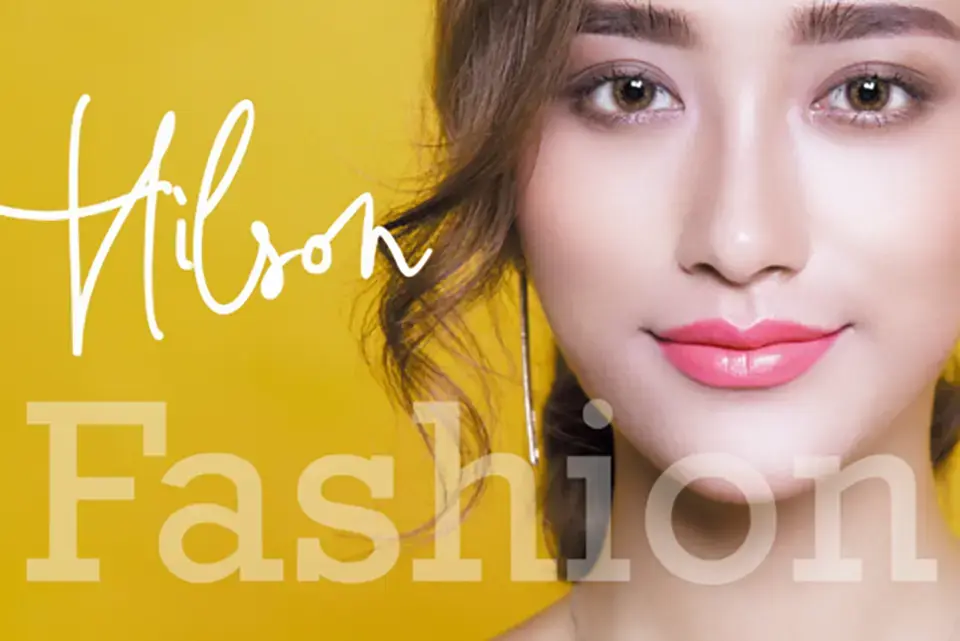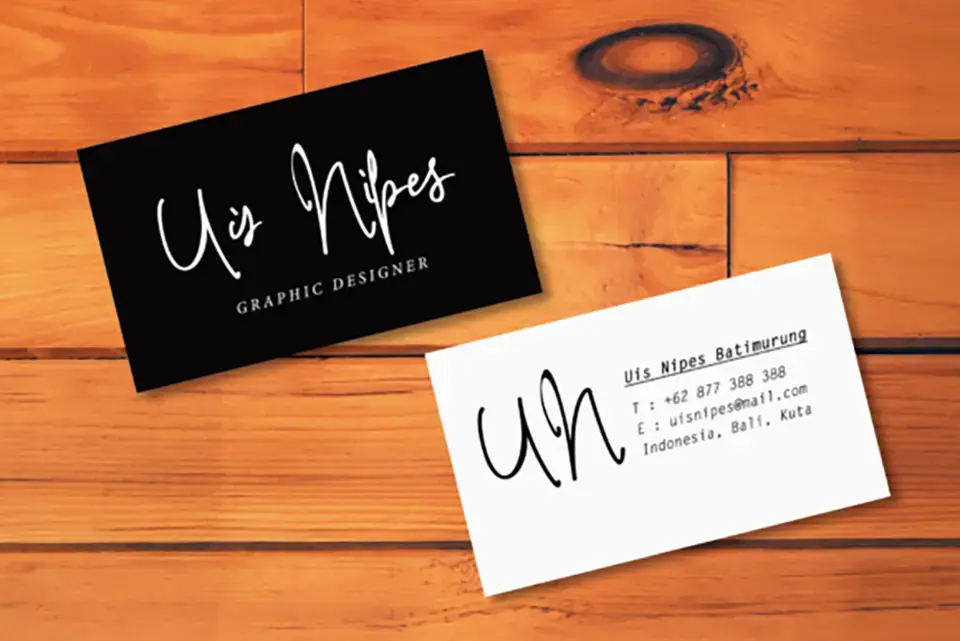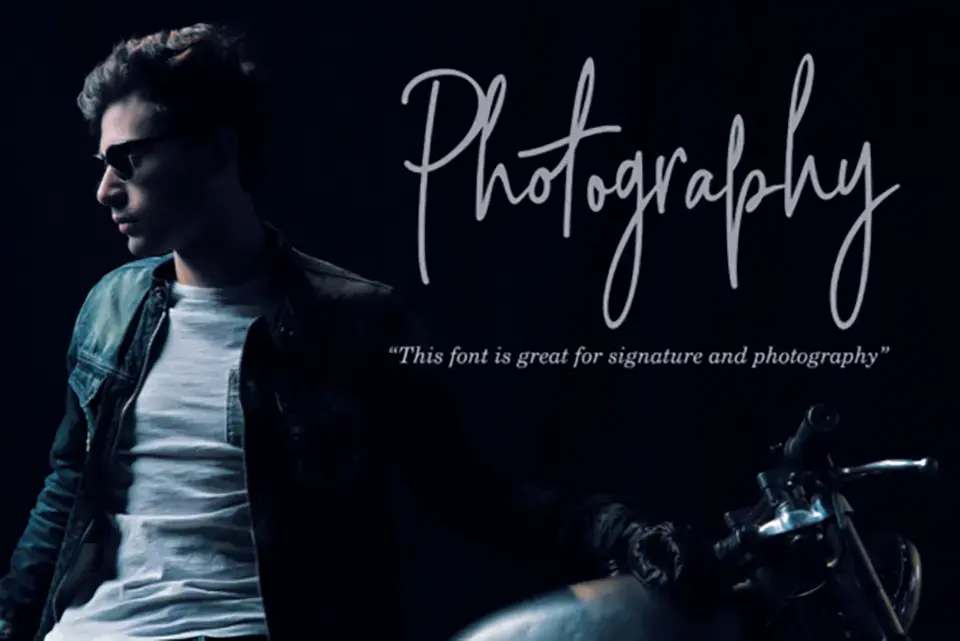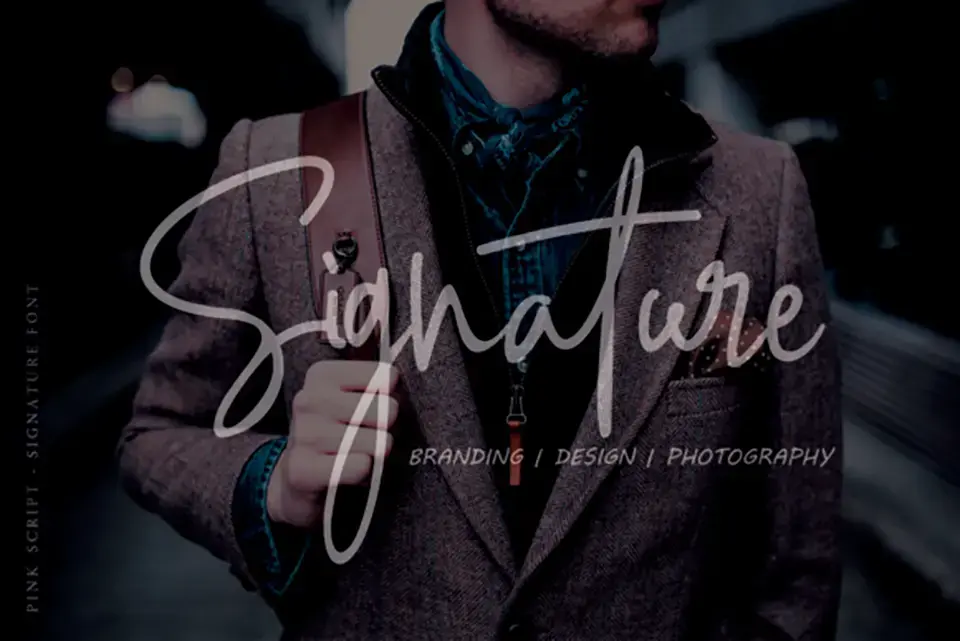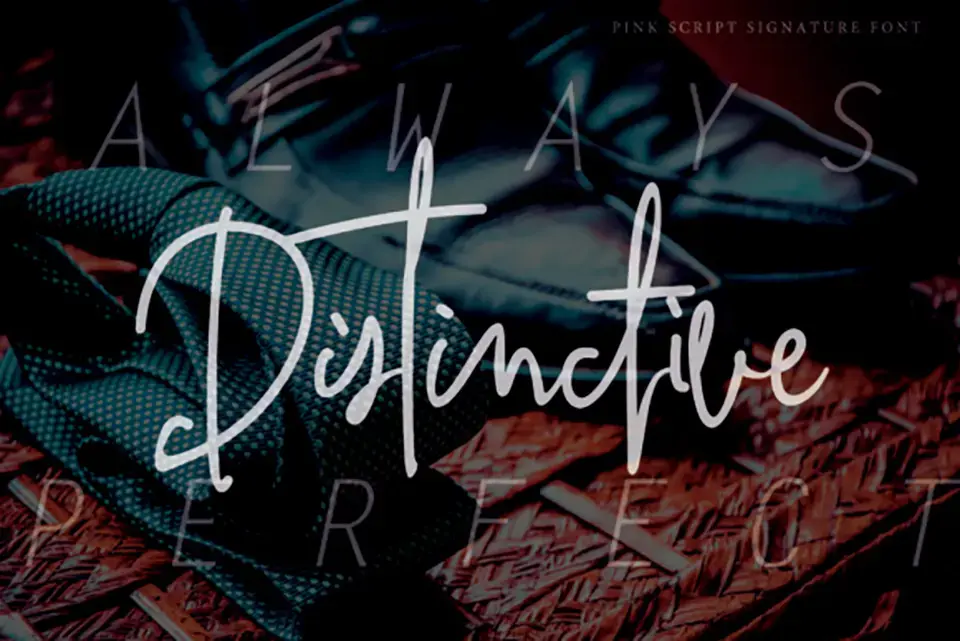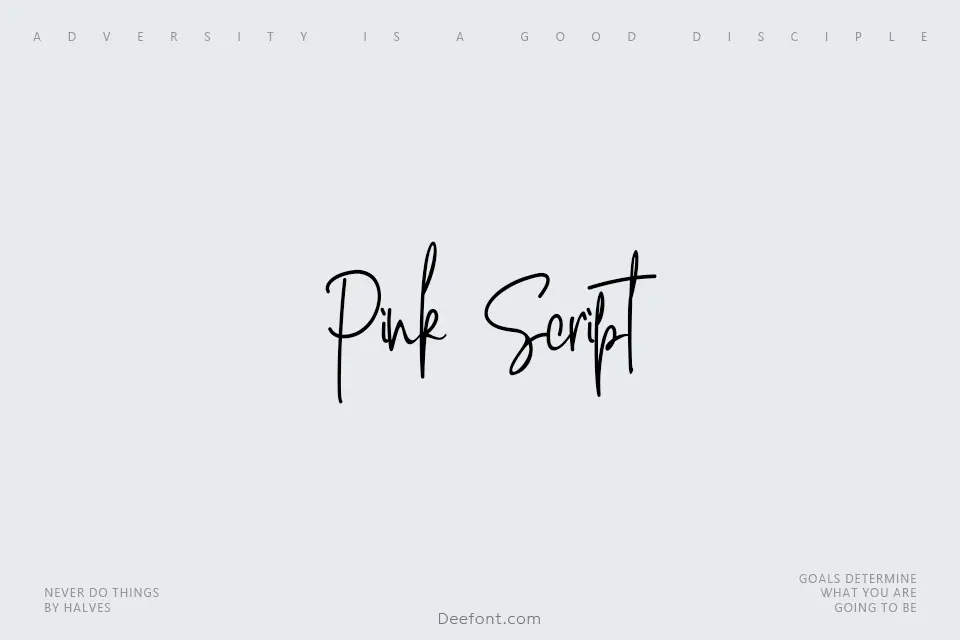
Pink Script Font
Pink Script is a fashionable and quirky handwritten script font crafted to mimic natural handwriting with exceptional authenticity. This elegant typeface features over 100 custom ligatures and a complete set of lowercase alternates, creating flowing, organic letterforms perfect for wedding invitations, greeting cards, posters, and display headlines. With its delicate curves and friendly personality, Pink Script excels at adding warmth and sophistication to branding projects, logo designs, event materials, and decorative typographic compositions that demand a personal, handcrafted aesthetic.